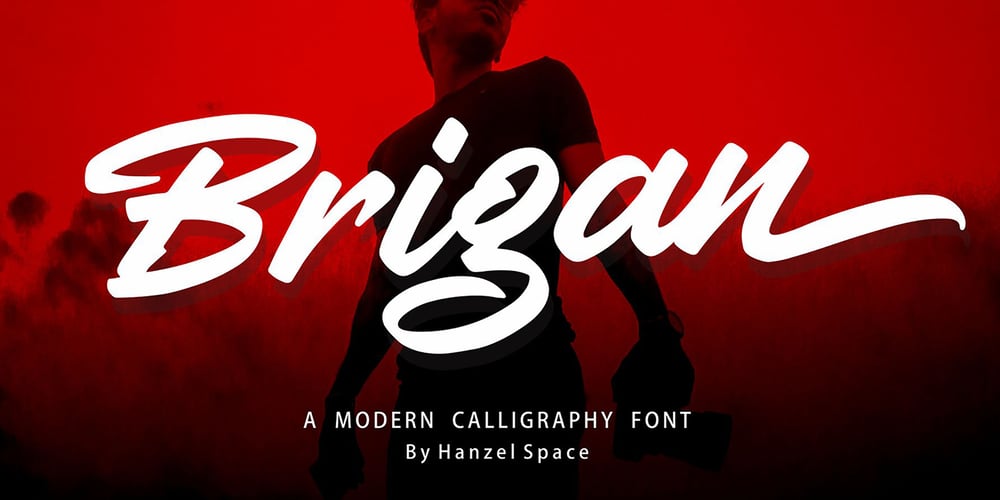
Brigan Font Family was designed by Hanief Farandi and published by Hanzel Space. Brigan contains 1 styles and family package options. Brigan Inspired by contemporary fashion and streetwear and combination with Hand Lettering style. I’m made with touch personality every single curve. I hope this can inspire you from your work. and a very bouncy baseline It has a perfectly paired complimentary marker font. Ideal for logos, handwritten quotes, product packaging, headers, posters, merchandise, social media & greeting cards.Files Include: Basic Latin A-Z and a-z Numbers Symbols Stylistic Set Ligature OpenType Stylistic alternates, you need a program that supports OpenType features such as Adobe Illustrator CS, Adobe Indesign & CorelDraw X6-X7. There are additional ways to access alternatives, using Character Map (Windows), Nexus Fonts (Windows), Font Book (Mac) or a software program such as PopChar (for Windows and Mac).